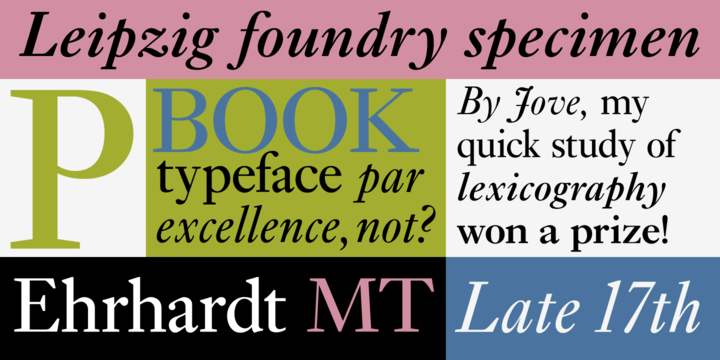
The Ehrhardt name indicates that this typeface is derived from the roman and italic typefaces of stout Dutch character that the Ehrhardt foundry in Leipzig showed in a late-seventeenth-century specimen book. The designer is unknown, although some historians believe it was the Hungarian Nicholas Kis.
Monotype recut the typeface in 1937 to 1938 for modern publishers.
Ehrhardt has a clean regularity and smooth finish that promote readability, as well as a slight degree of condensation, especially in the italic, that conserves space. More…
Ehrhardt is a fine text face, especially for books.